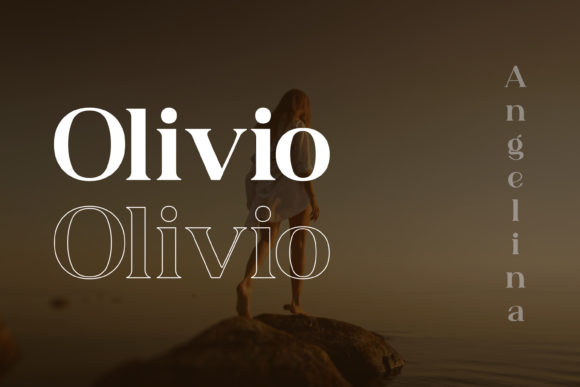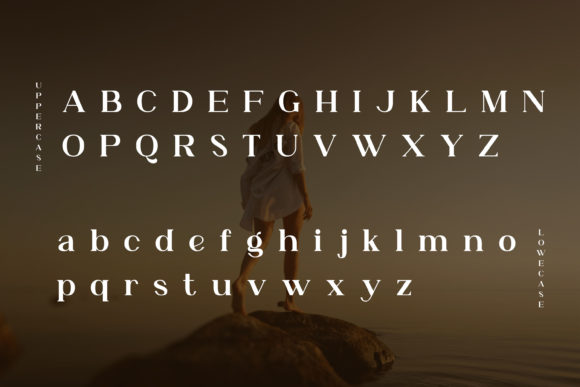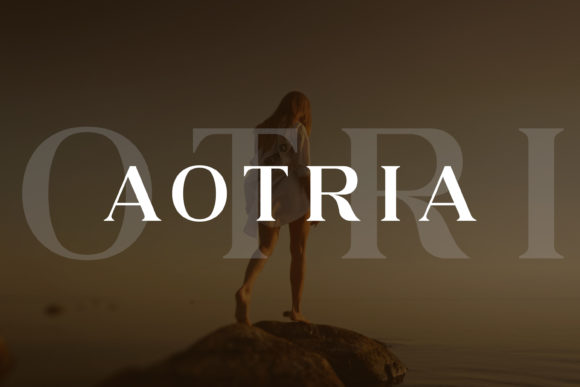
Introducing Angelina Font: Elevate Your Crafting Ideas with Modern Style
Are you a designer, crafter, or DIY enthusiast looking for a font that can add a touch of modern elegance to your projects? Look no further than Angelina Font, a stylish and versatile serif font that’s perfect for a wide range of crafting ideas. From cards and invitations to branding, labels, and more, Angelina Font is the perfect choice for anyone looking to elevate their creative projects.
What is Angelina Font?
Angelina Font is a modern serif font designed to bring a touch of sophistication and style to your crafting projects. Its clean lines, elegant curves, and precise letterforms make it perfect for use in a variety of applications, from digital designs to print materials. Whether you’re creating custom cards, crafting labels, or developing a brand identity, Angelina Font is the perfect choice.
Key Features of Angelina Font
- Modern and Stylish: Angelina Font features a modern and stylish design that’s perfect for crafters and designers who want to add a touch of elegance to their projects.
- Serif Font: As a serif font, Angelina Font features small lines or flourishes at the ends of its letters, giving it a classic and sophisticated look.
- Versatile: Angelina Font is perfect for use in a wide range of crafting ideas, from cards and invitations to branding, labels, and more.
- Elegant Curves: The font features elegant curves and precise letterforms, making it perfect for use in digital designs and print materials.
Uses for Angelina Font
Angelina Font is a versatile font that can be used in a wide range of crafting ideas, including:
- Cards and Invitations: Add a touch of elegance to your custom cards and invitations with Angelina Font.
- Branding: Use Angelina Font to develop a brand identity that’s modern, stylish, and sophisticated.
- Labels: Create custom labels for your products or projects with Angelina Font.
- Digital Designs: Use Angelina Font in your digital designs, such as social media graphics, blog posts, and more.
- Print Materials: Use Angelina Font in your print materials, such as brochures, flyers, and more.
Why Choose Angelina Font?
There are many reasons why Angelina Font is the perfect choice for designers and crafters, including:
- Unique and Modern Design: Angelina Font features a unique and modern design that’s sure to stand out from the crowd.
- Elegant and Sophisticated: The font’s elegant curves and precise letterforms give it a sophisticated and elegant look that’s perfect for a wide range of crafting ideas.
- Versatile: Angelina Font is perfect for use in a wide range of applications, from digital designs to print materials.
- Easy to Read: The font is easy to read, making it perfect for use in body text and other applications where readability is important.
Tips for Using Angelina Font
Here are a few tips for using Angelina Font in your crafting projects:
- Use it as a Title Font: Angelina Font is perfect for use as a title font, adding a touch of elegance and sophistication to your projects.
- Pair it with Other Fonts: Experiment with pairing Angelina Font with other fonts to create a unique and stylish look.
- Use it in Digital Designs: Angelina Font is perfect for use in digital designs, such as social media graphics and blog posts.
- Experiment with Colors: Experiment with different colors and textures to add depth and interest to your projects.
| Author | BeeType |
Angelina Font is a modern and stylish serif font that’s perfect for designers, crafters, and DIY enthusiasts who want to add a touch of elegance and sophistication to their projects. With its clean lines, elegant curves, and precise letterforms, Angelina Font is the perfect choice for a wide range of crafting ideas, from cards and invitations to branding, labels, and more. Whether you’re a seasoned designer or just starting out, Angelina Font is sure to become a favorite in your font collection.